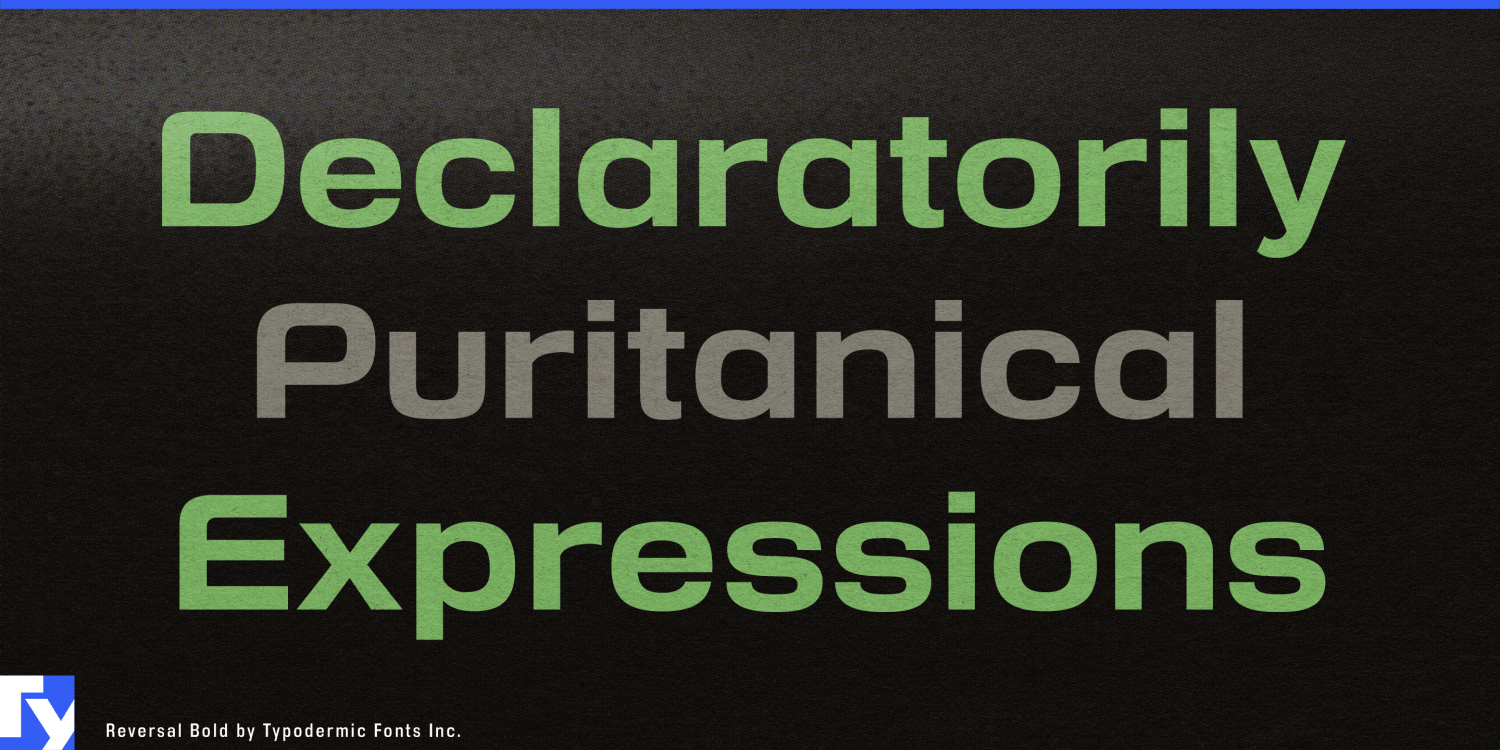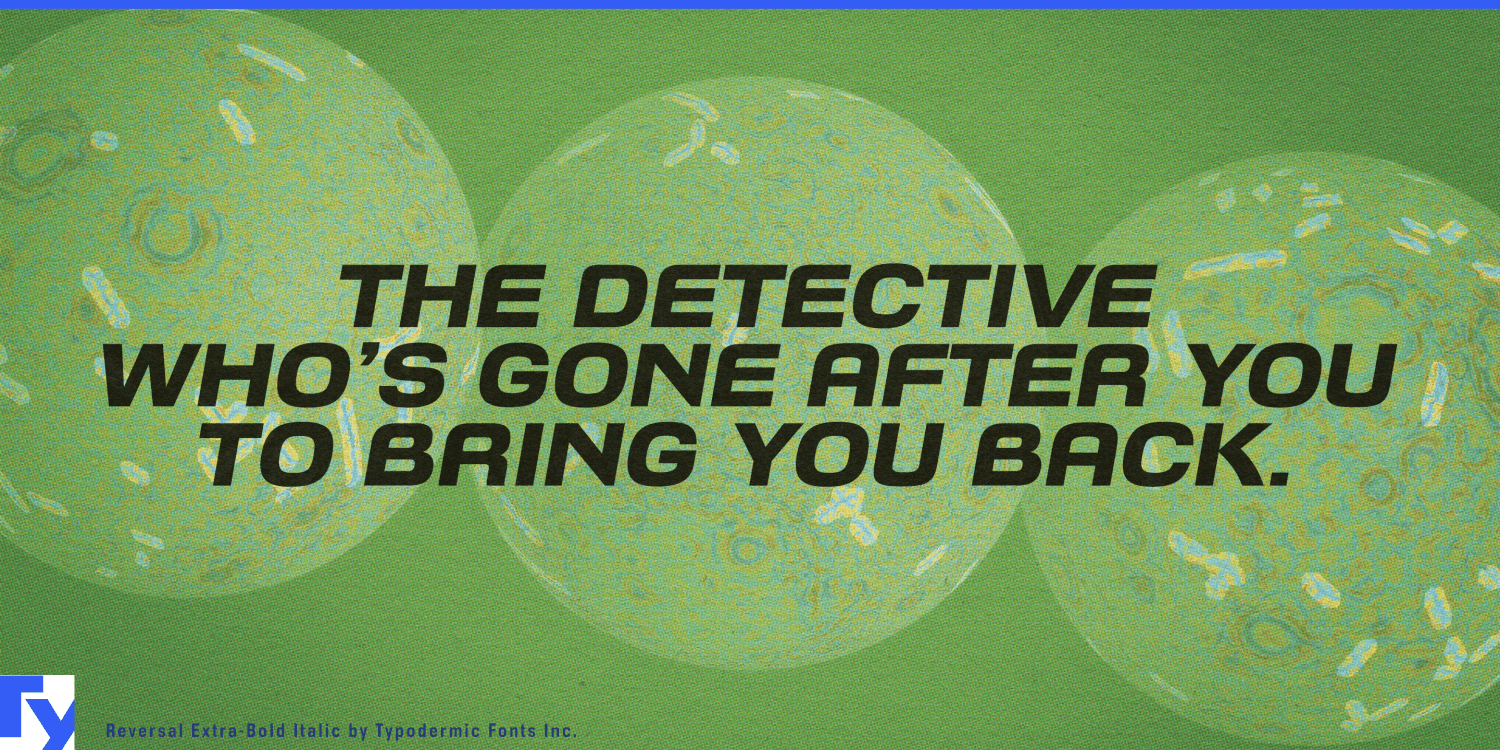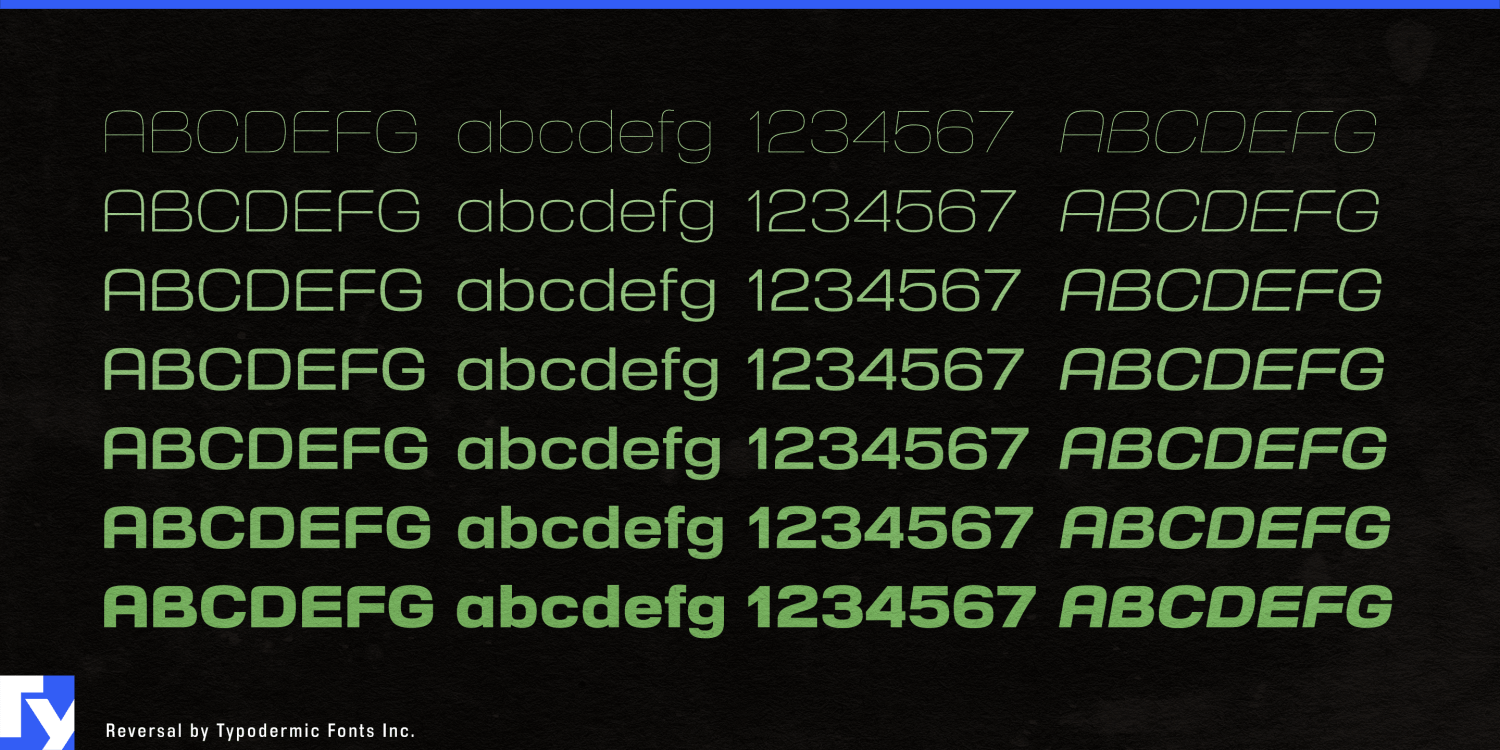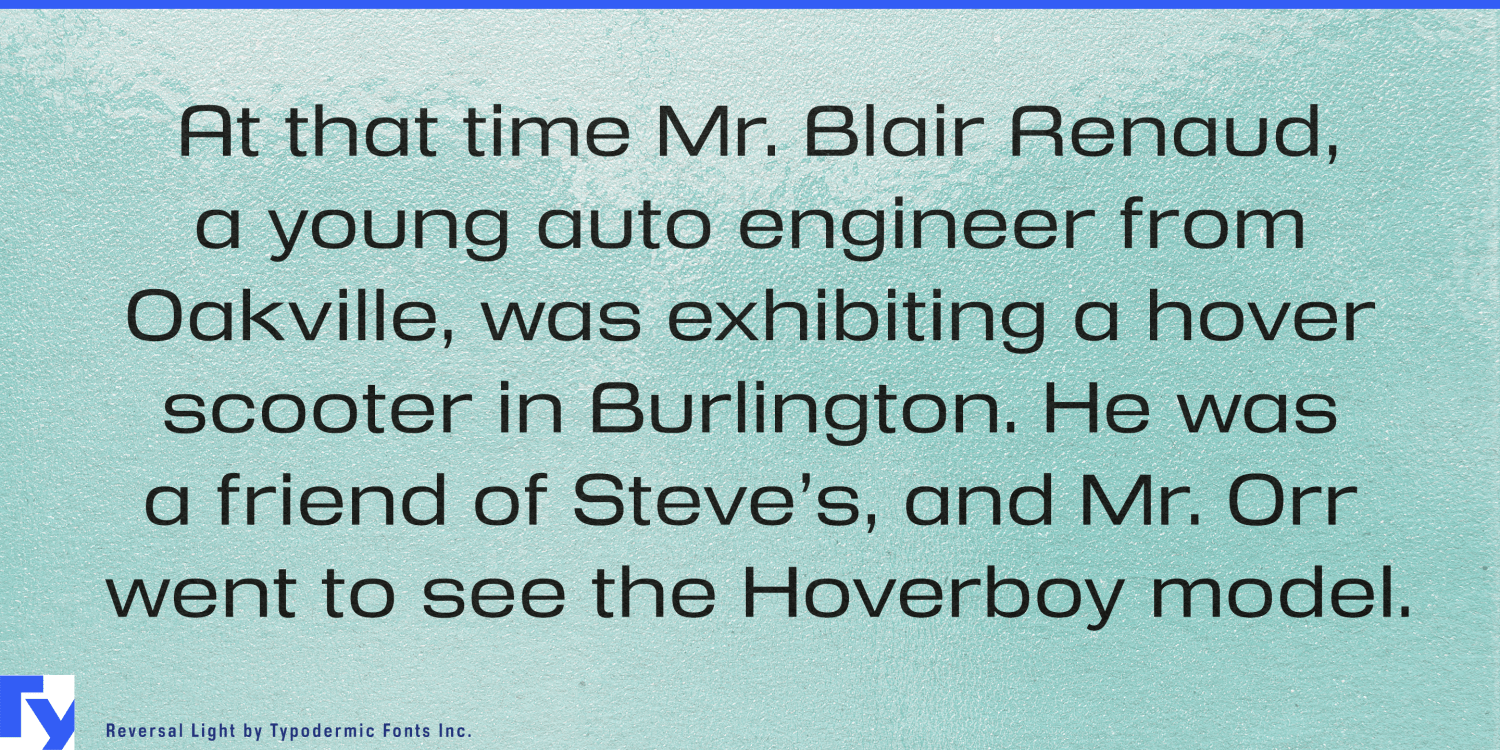
Enter the realm of Reversal, a sans-serif typeface that embodies the essence of ultramodern product design. Its superelliptical letterforms echo the sleek contours of cutting-edge technology, creating a visual language that speaks fluently to our digital…